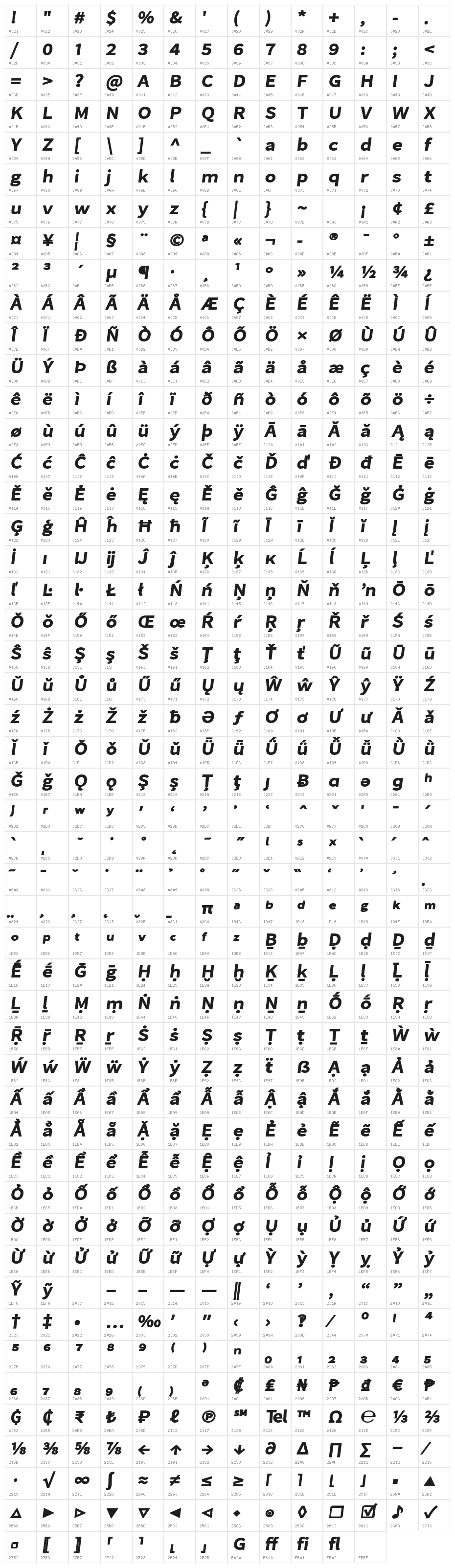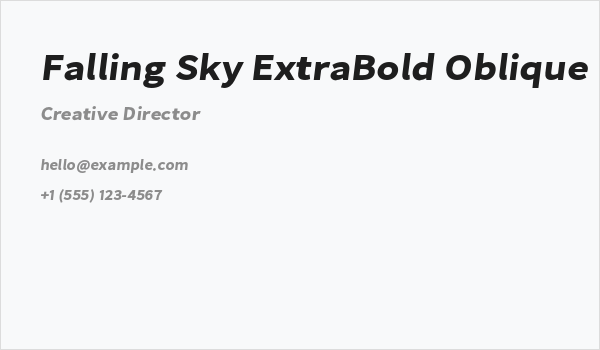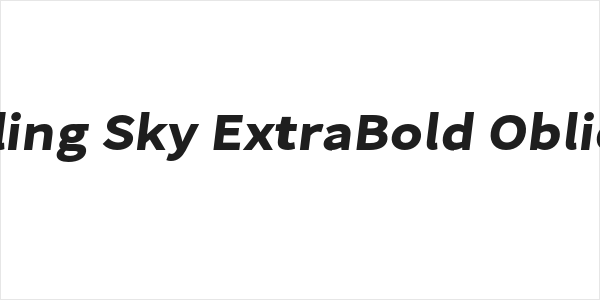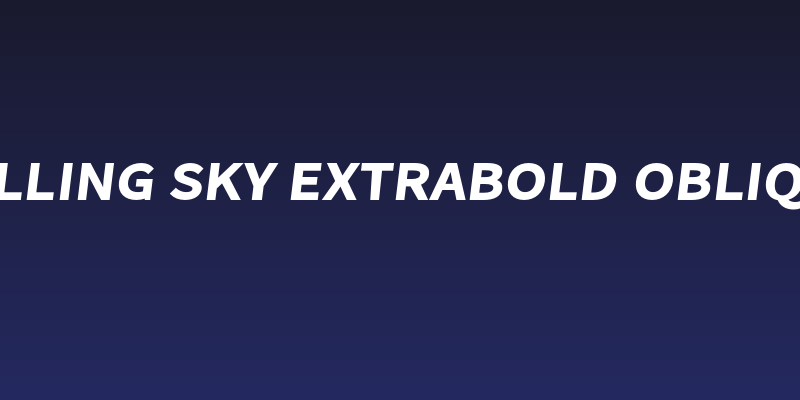
Falling Sky ExtraBold Oblique Font
Falling Sky ExtraBold Oblique Description
This font exhibits a bold and dynamic presence with its extra-bold weight and oblique style. The characters are slightly slanted, adding a sense of motion and modernity. The strokes are thick and consistent, providing a strong visual impact. The uppercase and lowercase letters maintain a uniform style, ensuring readability and coherence. The numbers and special characters are well-integrated, matching the overall bold aesthetic. This font is ideal for making statements and capturing attention.
| Proposed Projects | Ideal for headlines, posters, branding, and advertising where a strong, impactful presence is needed. |